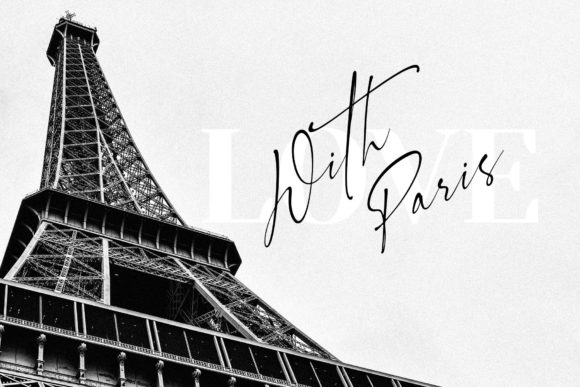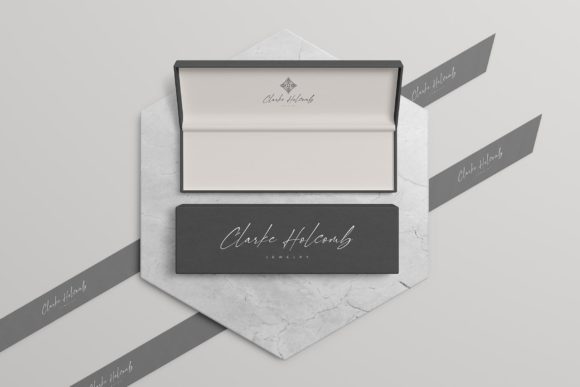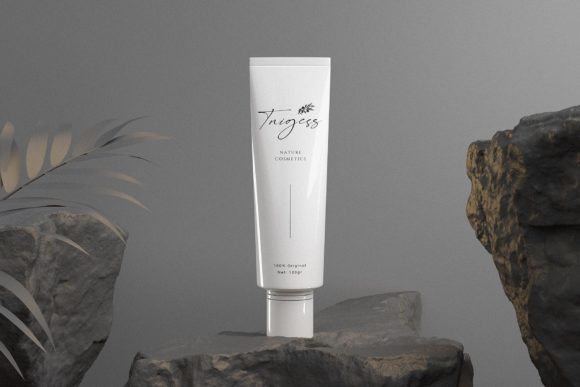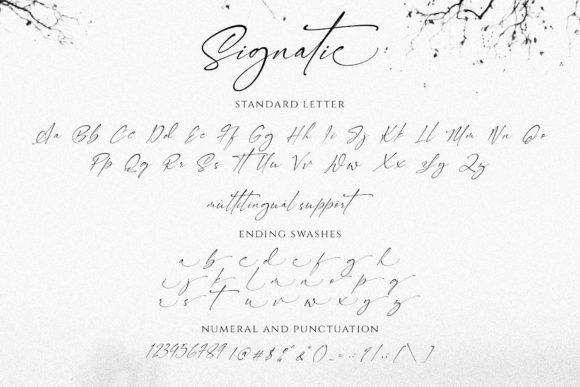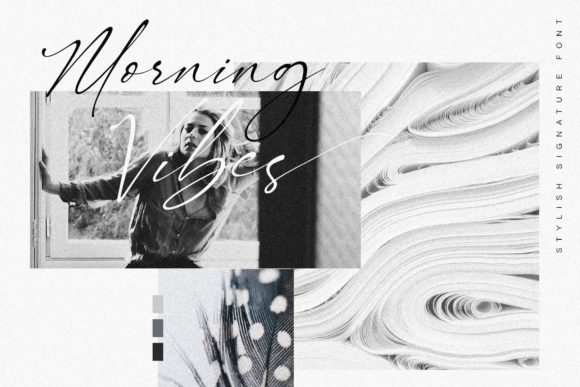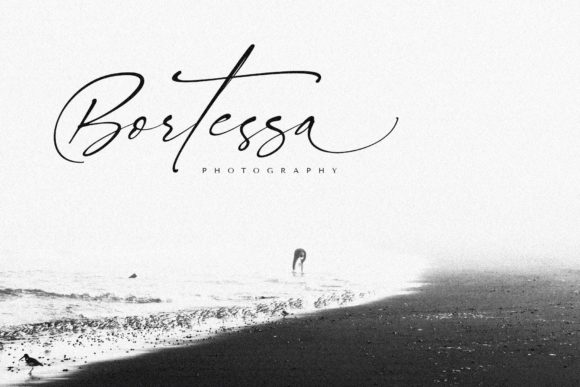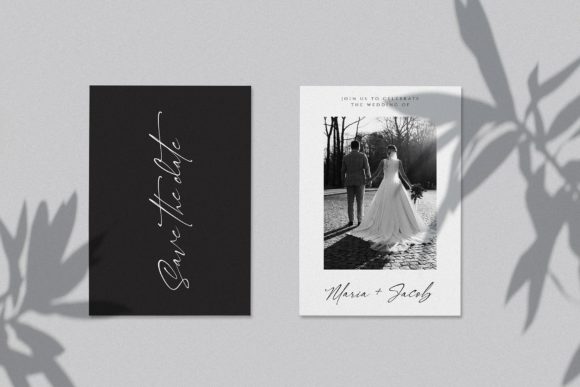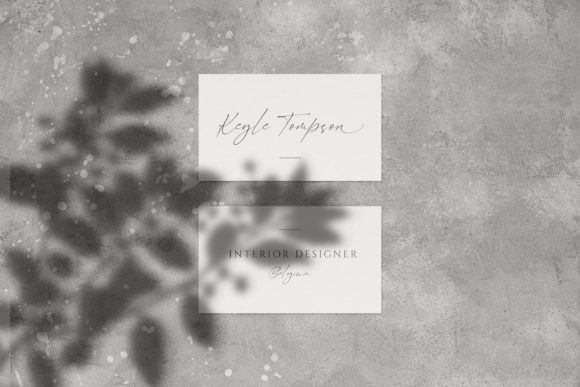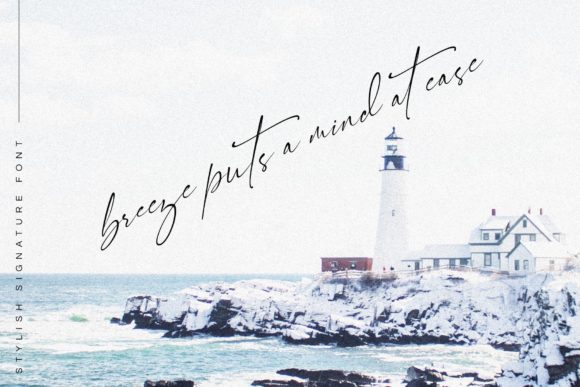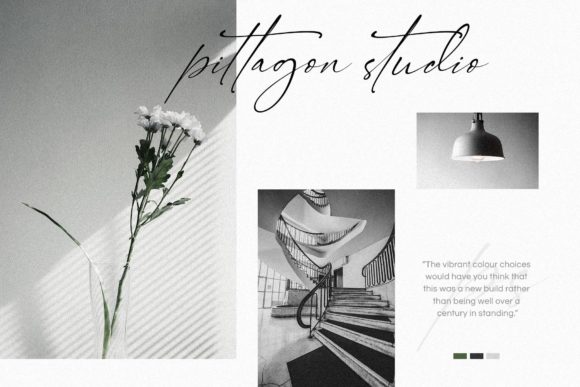
Signatie Font
About Signatie Font
Signatie is a stylish and beautiful handwritten font. For those of you who need an elegant touch for your new projects this font is a great choice.